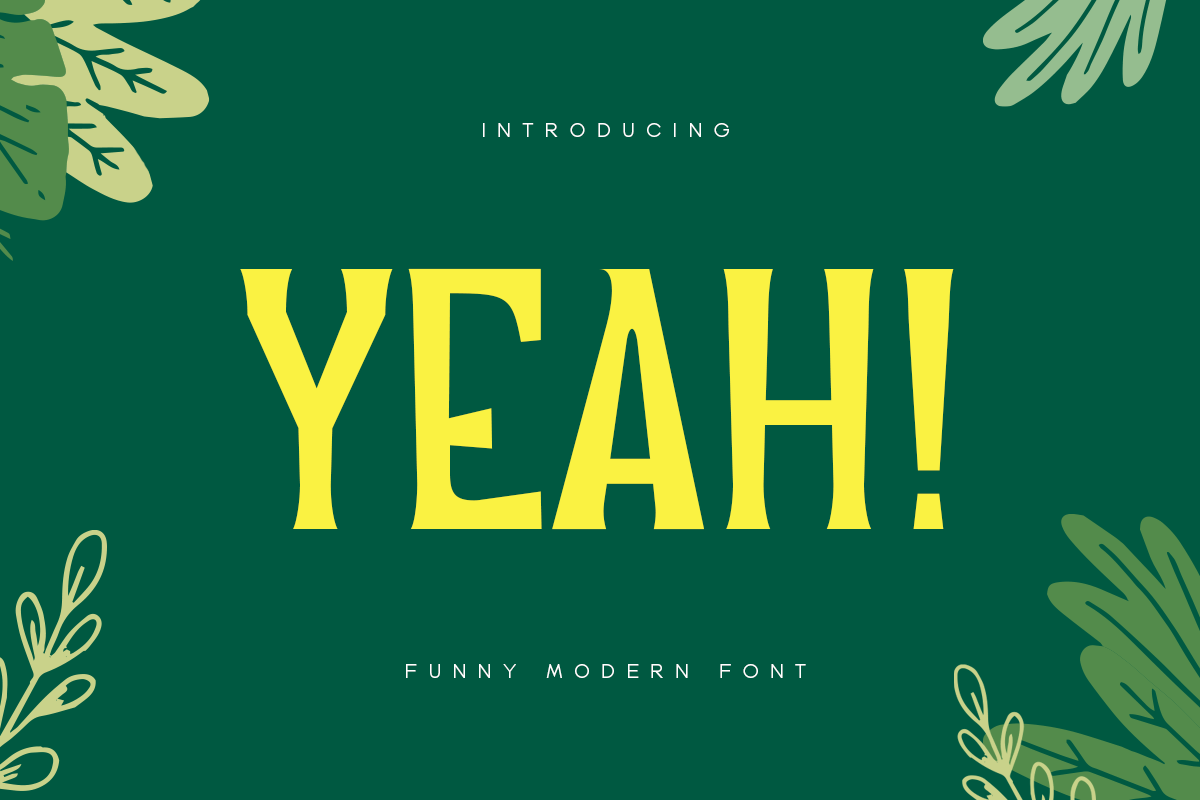
Yeah
-Funny Modern Font
Yeah
Yeah is A Modern Kids and Child Game Font. This font specially crafted for your design projects such as cute logo, unique poster, modern for t-shirt designs, product packaging, merchandise, pillow print and so many more with easy to use but unique results are so cute.
Enjoy to Design any your needs with cute, lovely, and childish feel.